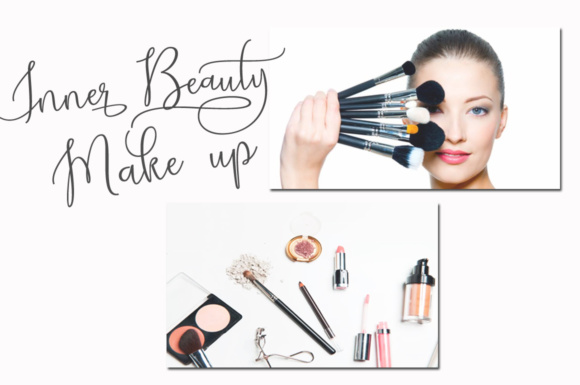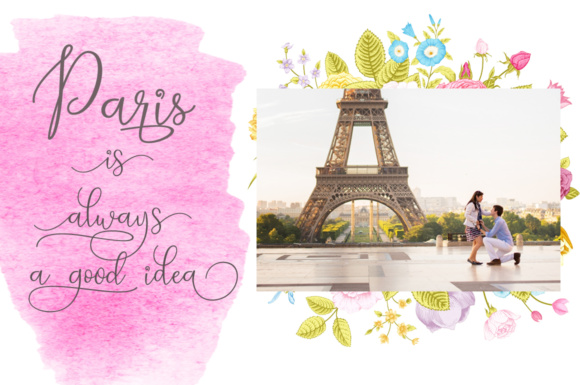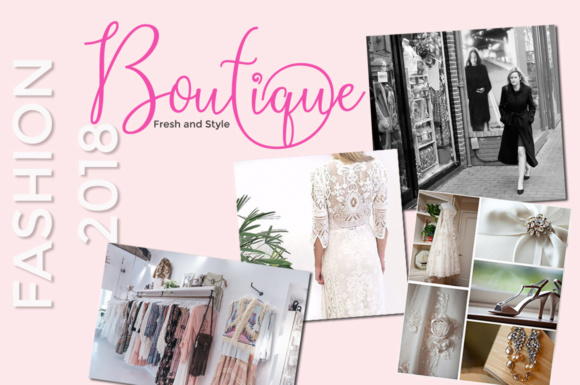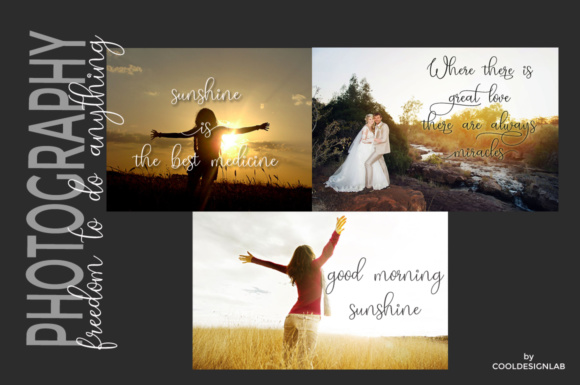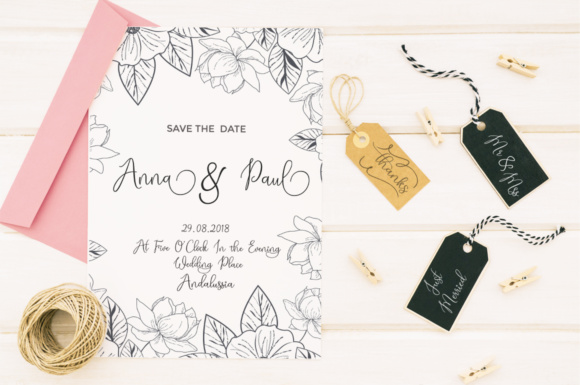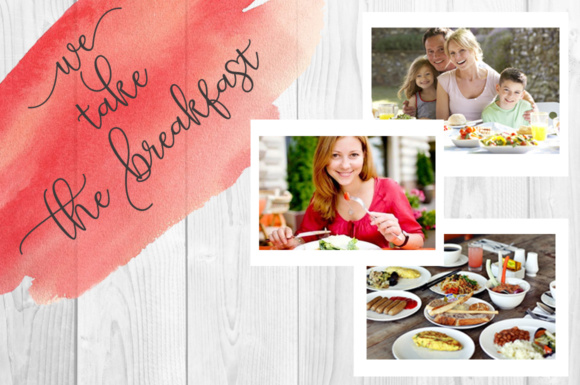
The Perfect Script Font for Your Next Design Project
Do you ever find yourself lost in a sea of font options, searching for the perfect script to elevate your design? I know I do. That’s why I’m excited to introduce you to the Alexandra Script Font – a beautiful, modern calligraphy font that’s perfect for making a statement in your next branding, logo, or fashion project.
With its contemporary script style, Alexandra Script Font is a valuable addition to any designer’s toolkit. Whether you’re working on a glamorous presentation, a magazine, or a greeting card, this font is sure to add a touch of elegance and sophistication. Its versatility makes it a perfect match for a wide range of design projects, from fashion and cosmetics to apparel and journaling.
Alexandra Script Font Key Features
- Font Family: Alexandra Script, a beautiful and elegant script font.
- Unique Characteristics: Unique, handwritten feel with subtle flair and flair variations, perfect for creating a personal touch in designs.
Designer Review: Alexandra Script Font
Overall, I was pleasantly surprised by the Alexandra Script Font. Here are the aspects that caught my attention:
- ✨ Elegant and sophisticated design, perfect for creating a high-end and luxurious feel in branding materials, such as invitations, business cards, and product packaging.
- ✨ Beautiful letterforms that flow smoothly, making it ideal for long text passages, like testimonials and quotes.
- ✨ A wide range of weights and styles, including regular, bold, italic, and bold italic, allowing for flexibility in typography and creative expression.
However, I did encounter a few limitations:
- ⚠️ The font may be challenging to read in smaller text sizes, as the letterforms can become blurry and lose their elegance.
- ⚠️ The font’s complexity and ornamentation may not be suitable for digital applications, like websites and mobile apps, where simplicity and legibility are crucial.
- ⚠️ The font may require additional design elements, such as headings and icons, to create visual hierarchy and balance.
Overall, I would recommend the Alexandra Script Font for designers who need to create high-end, luxury branding materials and are willing to work within its limitations.
Tips for Getting the Most Out of Alexandra Script Font
Use Alexandra Script Font for titles, headings, and other eye-catching text elements to add a touch of elegance and sophistication to your designs. Experiment with different font sizes and colors to create a unique visual effect.
Alexandra Script Font is ideal for:
– Luxury branding and marketing materials
– Fine art and photography projects
– Any design where a elegant and sophisticated font is desired.